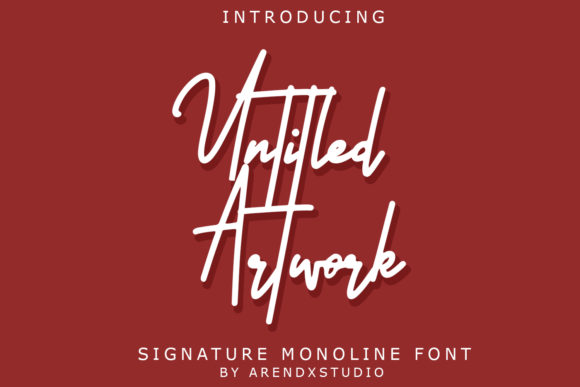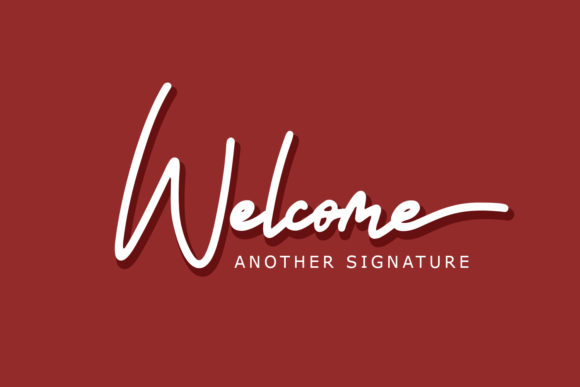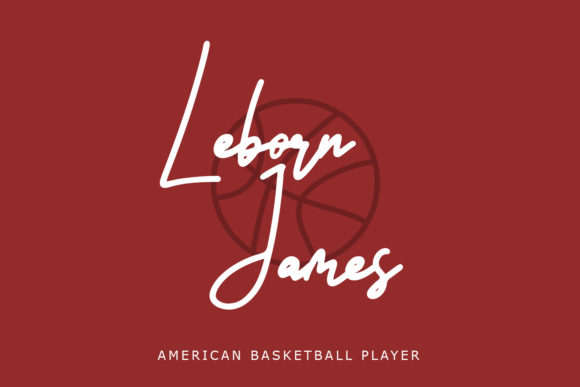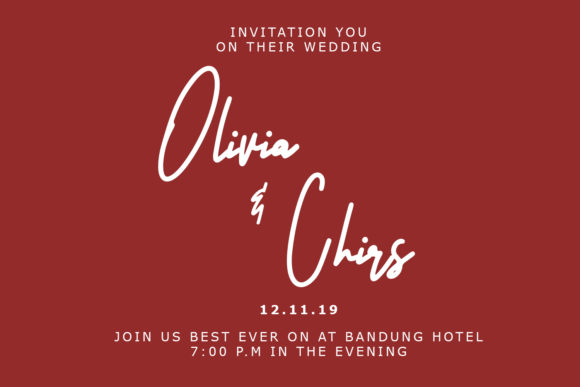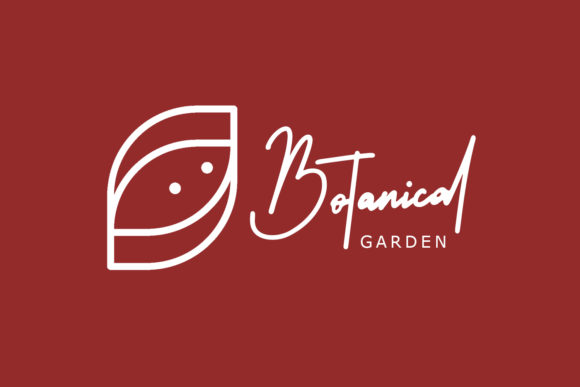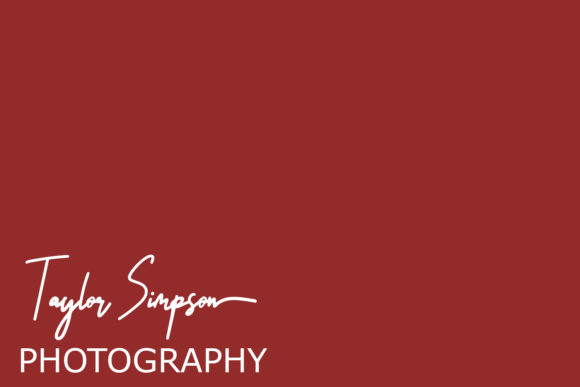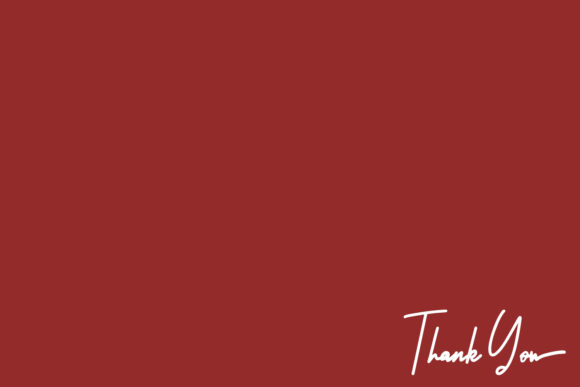
Untitled Artwork Font
About Untitled Artwork Font
Untitled Artwork is an incredibly artistic and sweet script, perfect for any design ideas in need of an authentic touch.